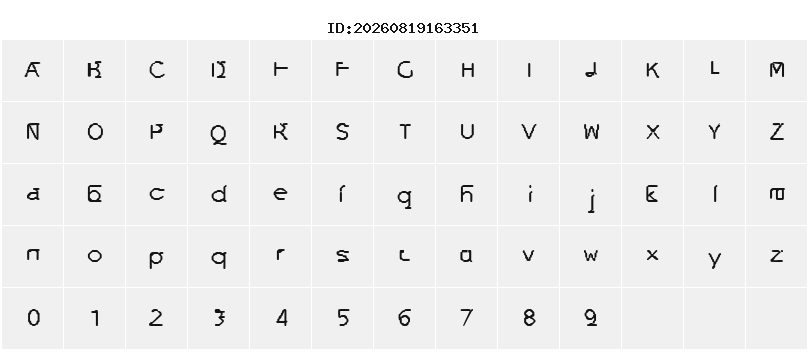
Signal AND.ttf is a modern, elegant sans-serif font designed for ultimate readability and visual harmony. Perfect for branding, headlines, web design, and print materials.